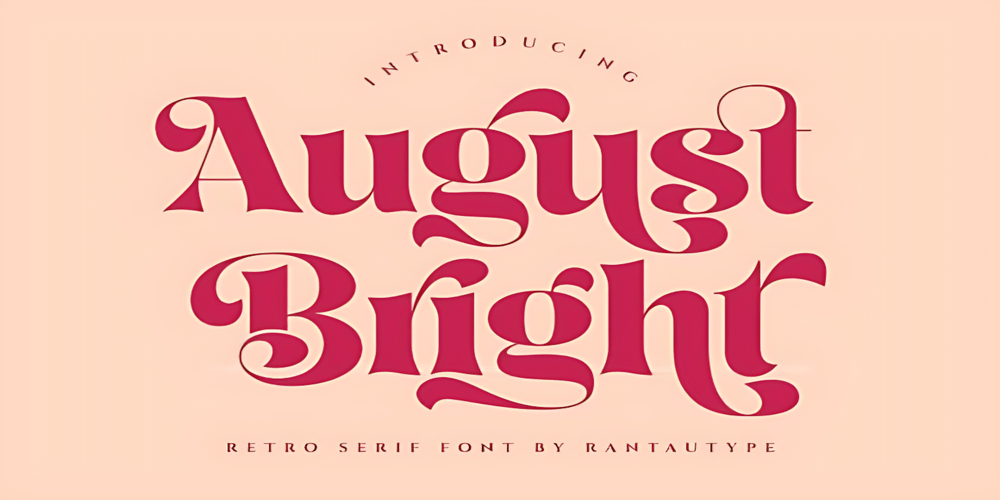
August Bright Font Family was designed by Frank Heine and published by Adita Fonts. August Bright contains 2 styles and family package options. August Bright is a modern and elegant serif font. Perfect for us on your logos, quotes social media, business cards, web designs and so much more.COMPATIBILITY Windows Apple/Mac Linux Easily convert to webfont